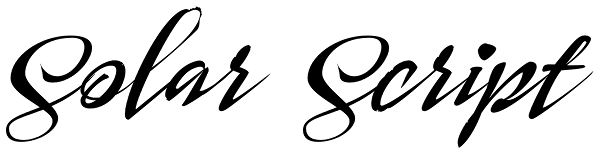
Solar
Solar is a font family designed by Carlos Fabian Carmargo G. Its members, together or separate, can be used in packaging, posters, cards, invitations and logos that needs expressive letters with craft features. First, a set of arbitrary ideas were...
Solar Caps 1 Shadow
Solar Dingbats
Solar Caps 2 Shadow
Solar Caps 1
Solar Caps 2
Solar Script
Solar Words